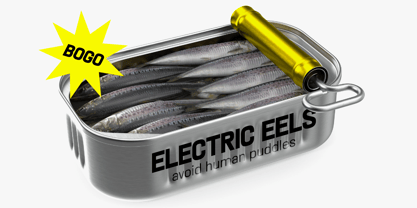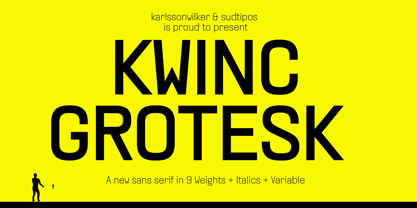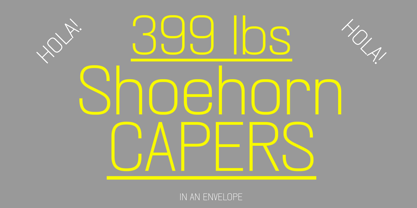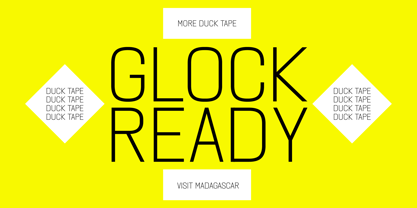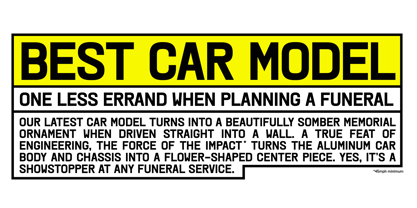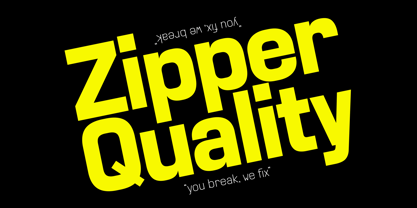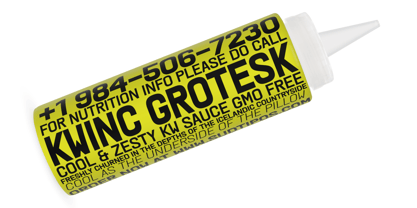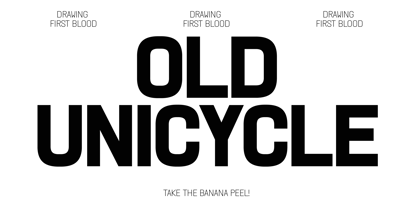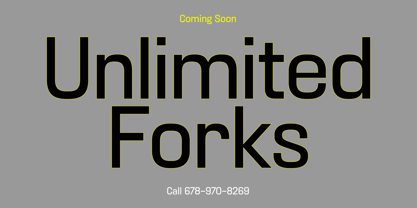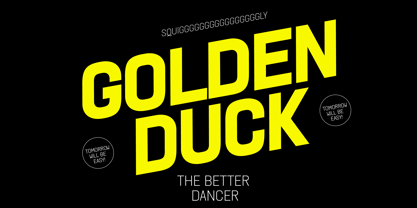
KWINC Grotesk
La familia tipográfica KWINC Grotesk fue diseñada por Alejandro Paul y publicada por Sudtipos. KWINC Grotesk contiene 20 estilos y opciones de paquete familiar. Más información sobre esta familia
We are thrilled to announce KWINC Grotesk, the first collaboration between Karlssonwilker, the acclaimed New York design studio, and Sudtipos.
Founded in 2000 by Hjalti Karlsson and Jan Wilker, Karlssonwilker has brought its signature blend of narrative, humor, and cultural insight to a vast array of projects. Members of the Alliance Graphique Internationale, Hjalti and Jan have long shared creative conversations with Ale Paul of Sudtipos. Now, those conversations take form in KWINC Grotesk, a typeface that reflects their bold, dynamic spirit.
Inspired by vernacular dimensional letters found in U.S. home improvement stores, KWINC Grotesk offers a playful yet functional type experience. Its uppercase design is strikingly expressive, while the lowercase introduces an old-style aesthetic enriched with a multitude of typographic features.